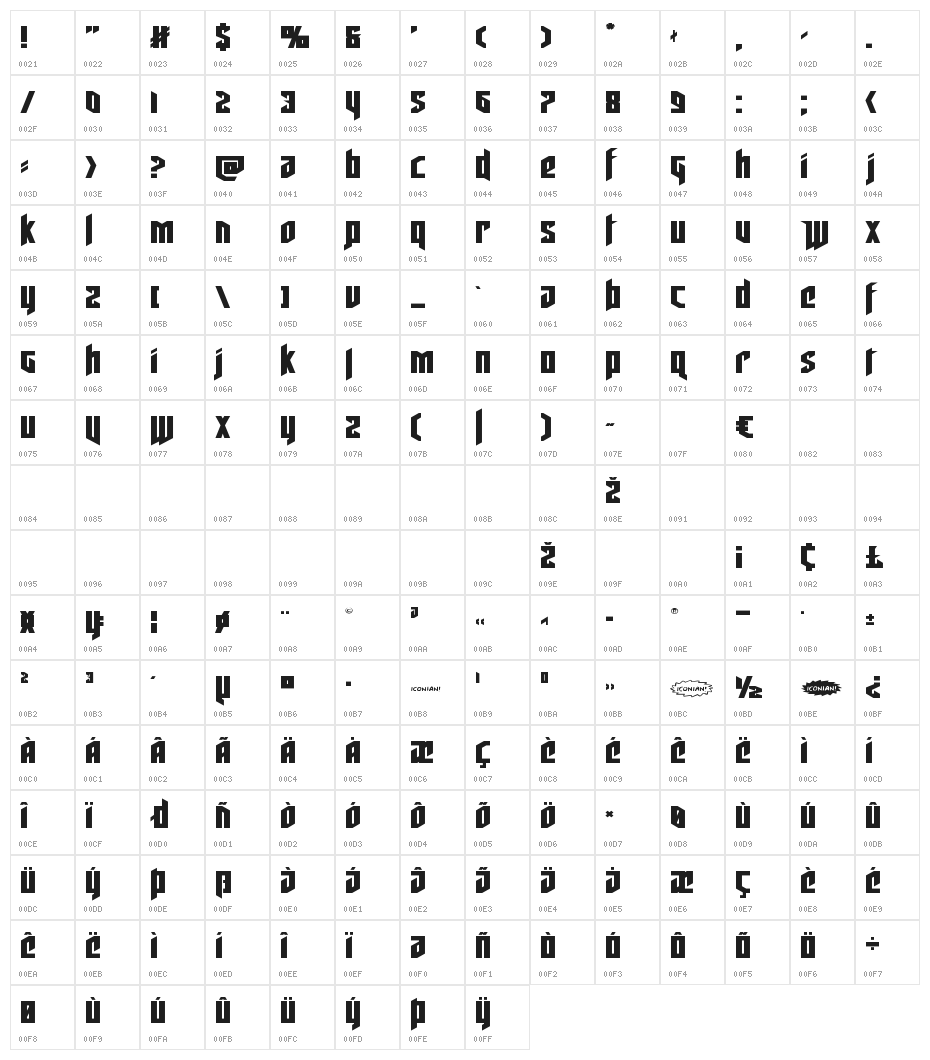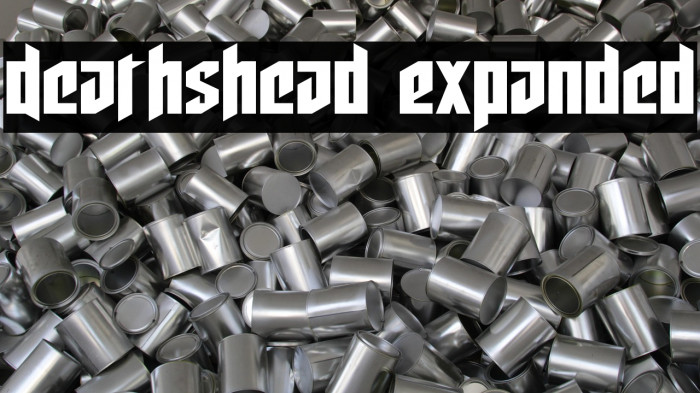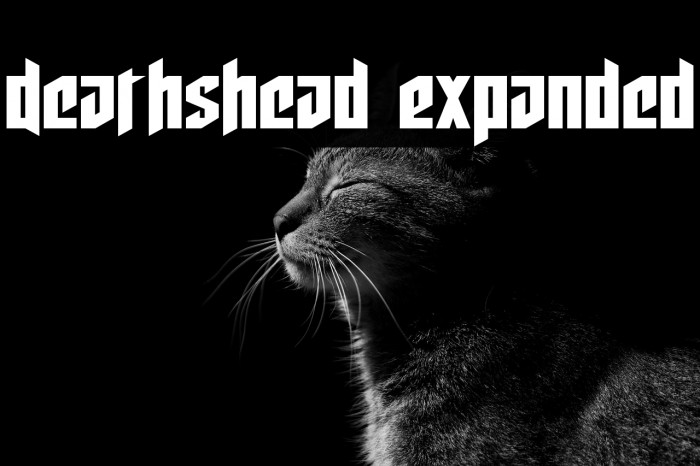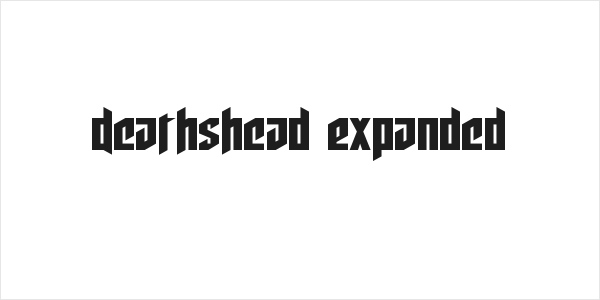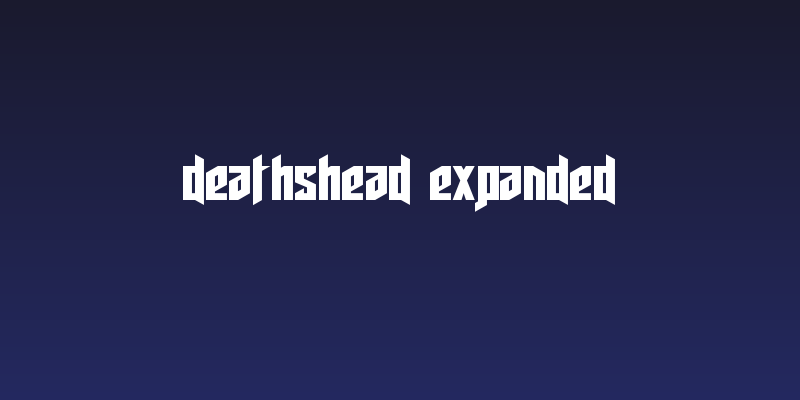
Deathshead Expanded Font
Deathshead Expanded Description
This font features a bold and aggressive style with sharp, angular edges and a distinct geometric form. The characters are designed with a heavy weight, giving them a strong presence. The uppercase and lowercase letters maintain a consistent style, with the lowercase being slightly more compact. Numbers and special characters follow the same angular theme, ensuring uniformity across the font. The design is reminiscent of a modern, industrial aesthetic, making it suitable for projects that require a bold and impactful visual statement.
Proposed ProjectsIdeal for use in posters, album covers, video game graphics, and branding that requires a strong, edgy look.